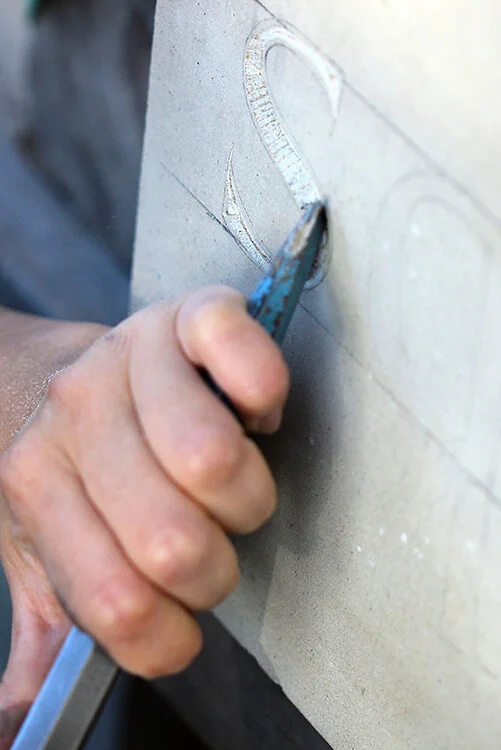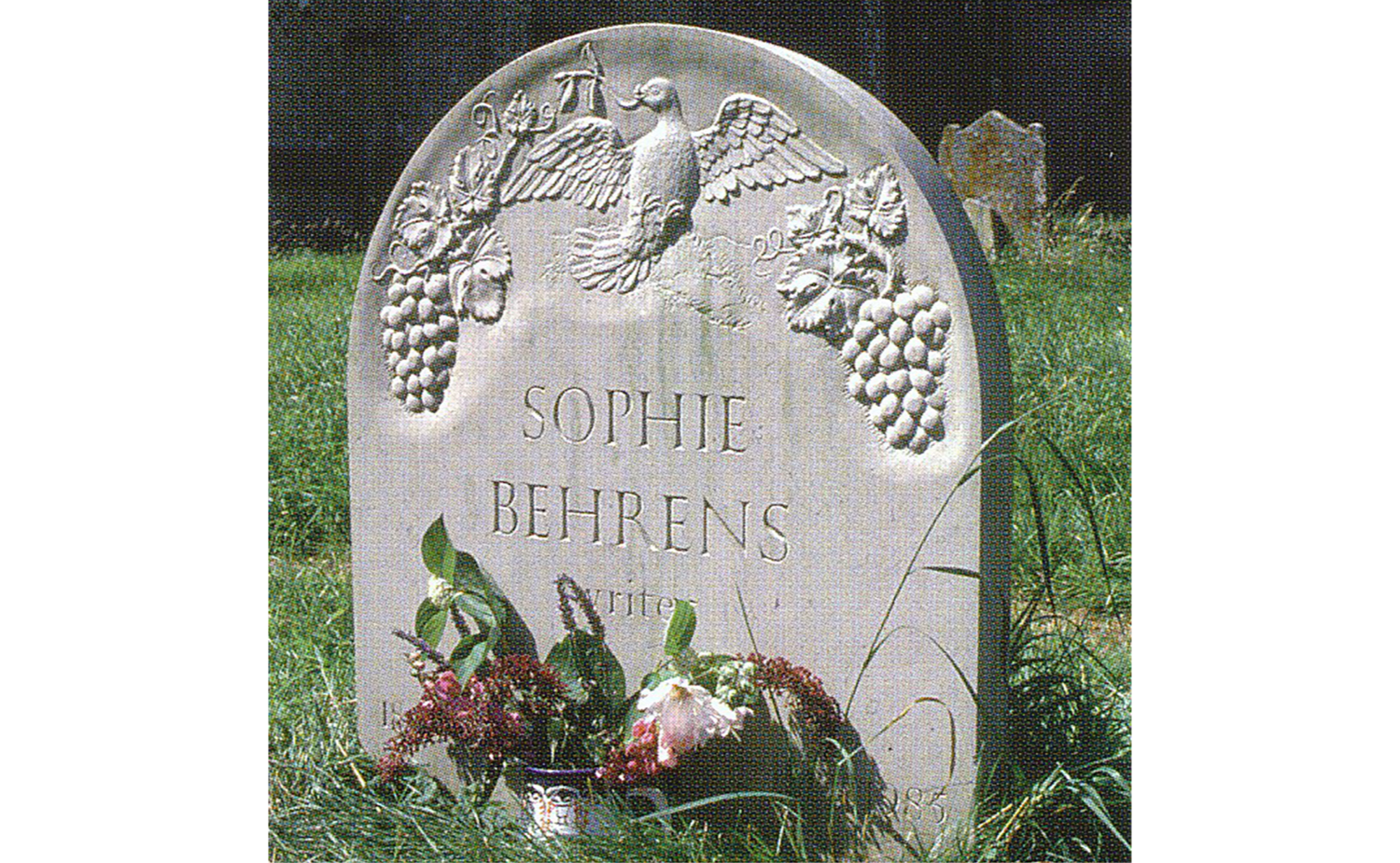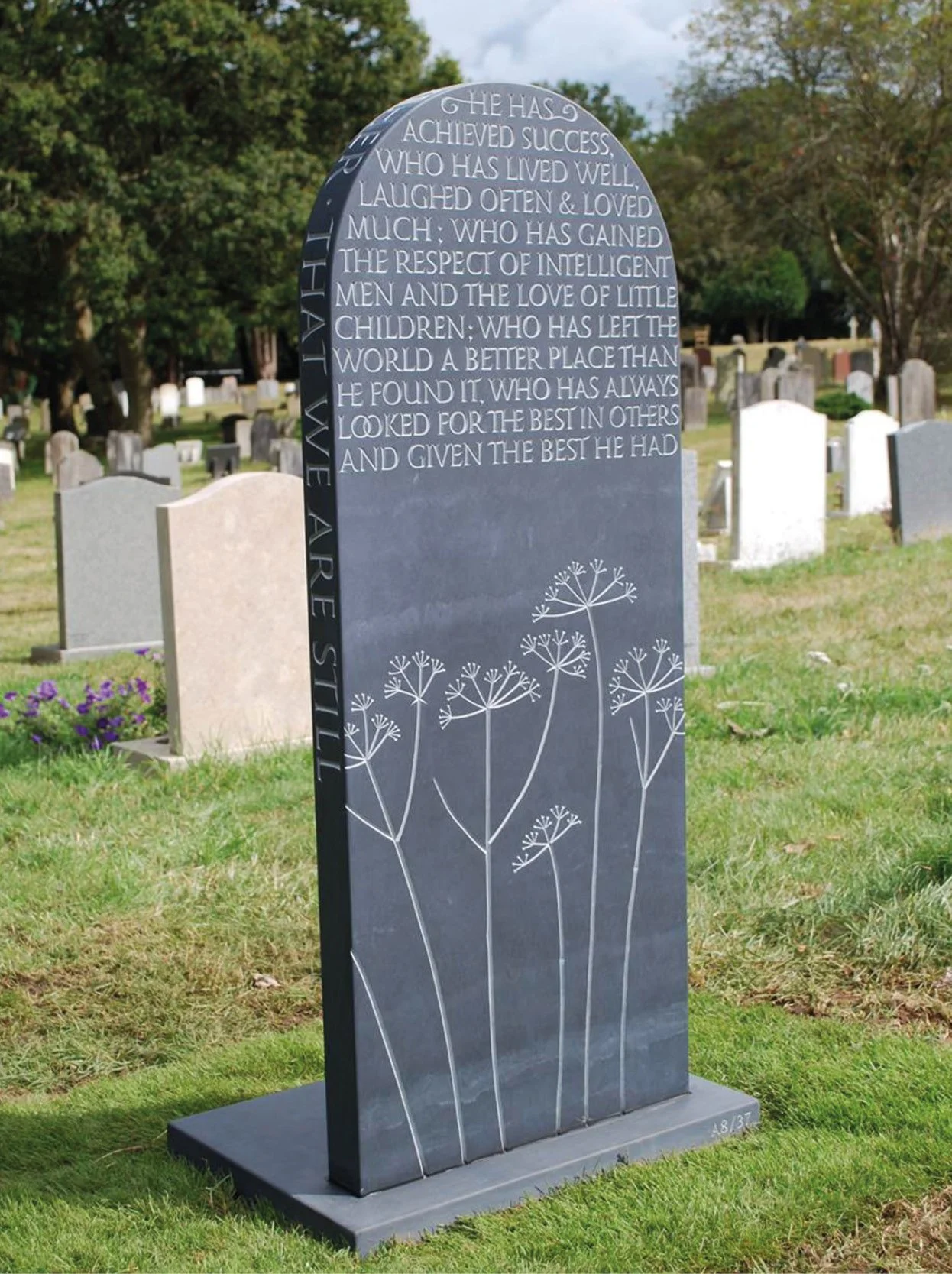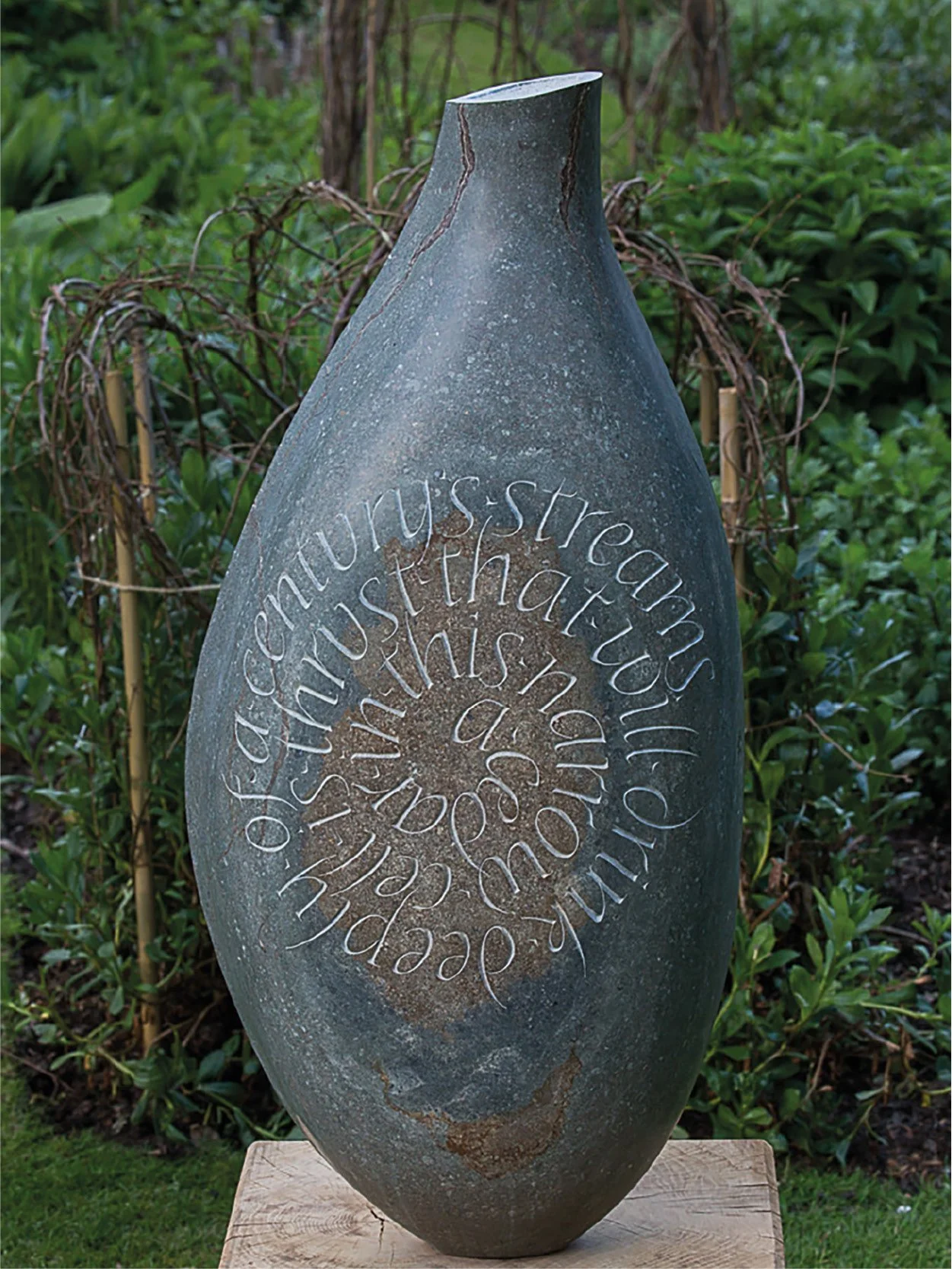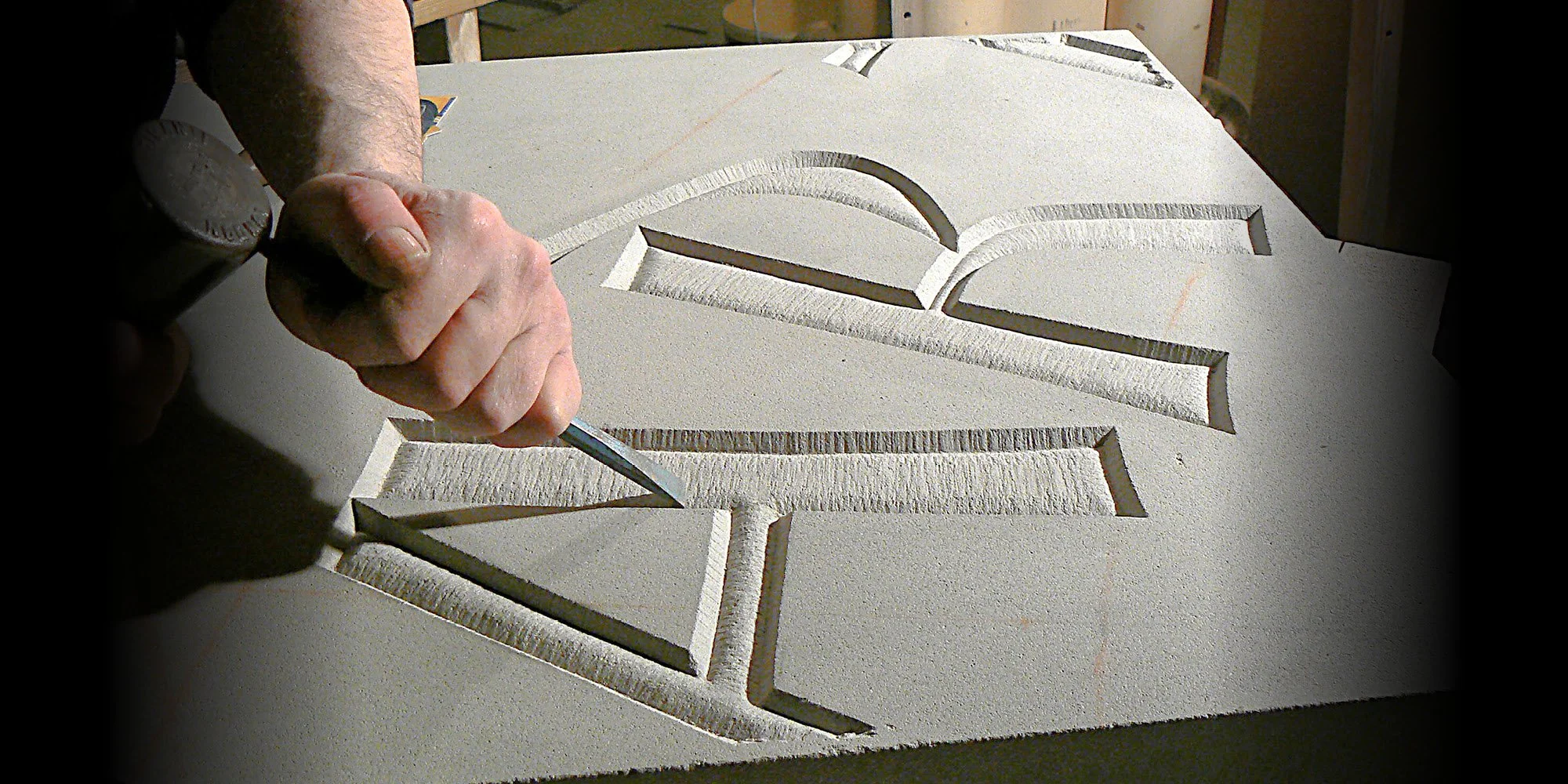
The Lettering Arts Trust is a charity dedicated to the fostering of an age-old art.
For centuries, human beings have felt the need to mark-make. This urge continues today and we are thrilled to play a part in its future. Mark-making is all around us - in new public works commemorating great lives or momentous events, through to statements spray-painted as graffiti.
The Lettering Arts Trust was founded in 1988 by Harriet Frazer MBE as ‘Memorials by Artists’
This was in response to Harriet’s need to find someone to make a unique memorial for her step-daughter Sophie, who died suddenly at the age of 26. It was hard at that time to find a letter carving artist, but harder still discovering that church regulations prevented her from inscribing her daughter’s poetry onto a memorial.
When Harriet finally did find artist Simon Verity, she determined that other people wanting to mark the life of a loved one should not have to go through what she had to before finding Simon. So she formed Memorials by Artists – to help others, and help foster the art and craft of creating unique well-designed memorials.
Today’s world is increasingly pixelated… digital… ephemeral. What better way to make a lasting mark than by having a name, a phrase, a date, hand carved forever in stone by a letter-carving artist?
We believe in the importance of creating beautiful hand-carved letters, and passing on the skills to create them. Hand-carved letters are a permanent mark in stone that show the love a person has for another; keep alive the memory of a special event; or mark a beloved place for years to come.
The highly honed skill of letter carving that had been passed down from the Romans, nearly faded in the mechanised society of the early 20th century. This was when a new generation of lettering artists such as Eric Gill made it their mission to revive it. This is our mission, too.
Today, we are the UK’s leading voice for promoting the lettering arts. We are a nonprofit organisation that fund apprenticeships, hold workshops, host talks, sell fine works, and curate exhibitions. Our aim is to inspire people about lettering, while equipping letter-carving artists with the skills they need for now and the future.
We also want to make creating a memorial by an artist as rewarding, inspiring and as meaningful as possible. For over 30 years, this has been one of our most important goals. Thanks to our register containing 75 of the UK’s finest letter-carving artists, with whom we have strong relationships, we are confident people who come to us gain a memorial by artists that at once inspires, consoles and delights.
Since 1988, Memorials by Artists has evolved. Today, it is the Lettering Arts Trust which not only helps people commission memorials, but also holds exhibitions and runs apprenticeship schemes for lettering artists. Its constant has been to keep the art of letter carving alive, to make it accessible to people, and to give advice and information through the process of commissioning a piece, be it a memorial or a garden sundial.
We want the centuries’ old art of letter carving to thrive in today’s digital world.
Meet the trustees
There are many talented people involved in the Lettering Arts Trust.
We highlight here the people who are instrumental in its continuing success on a day-to-day basis.
Mark Noad
Director
Mark Noad is a graduate of Norwich School of Art. Mark has over 30 years’ experience working for leading design consultancies in the UK and New Zealand as well as running his own business.
He has contributed to several exhibitions at the Lettering Arts Centre as well as curating the ‘Rock Paper Pixel’ exhibition in 2019. He is a former Chairman of Letter Exchange (www.letterexchange.org) is probably best known for his alternative design for the London Underground map (www.london-tubemap.com).
Ron Clarke
Treasurer
Ron has been Finance and Operations Director at London’s artsdepot since 2008, and was Finance Director of the Esmee Fairbairn Foundation between 2000 and 2008. He has over 20 years’ experience of financial management in both private and not for profit sectors.
Lisi Ashbridge
Trustee
Lisi has an international background with a strong multi-disciplinary interests. Having grown up on the continent she came to study at UCL, followed by a PhD in Neuropsychology at St Andrews, a postdoc research fellowship at Oxford and lectureship in London. Her field of interest was how the brain recognises shapes.
Jamie Bill
Trustee
Having spent over 30 years in publishing at the Hearst Corporation and Condé Nast, both in Europe and the US, Jamie went on to work as a director of the London Design Festival and Design Biennale.
He was a governor of the University of the Arts London for over 10 years before taking on the role as Chair of Trustees of City and Guilds of London Art School. One of the focuses of the School is to deliver advanced carving and calligraphy skills as well as delivering insight into industry connections and professional networks.